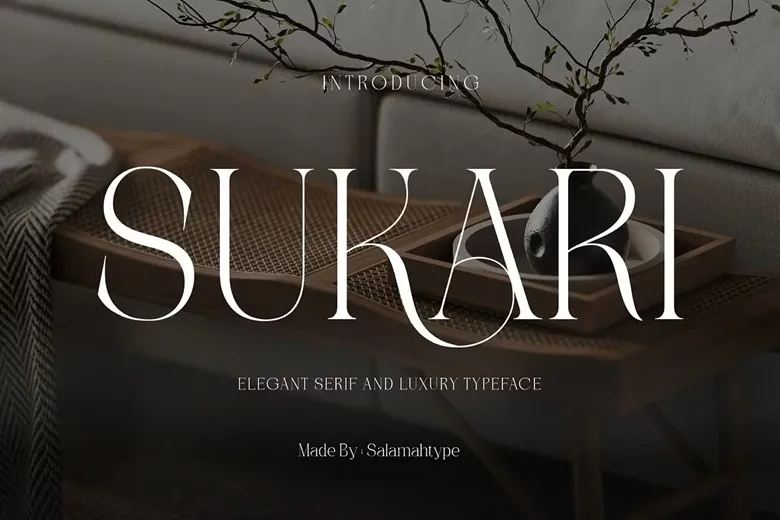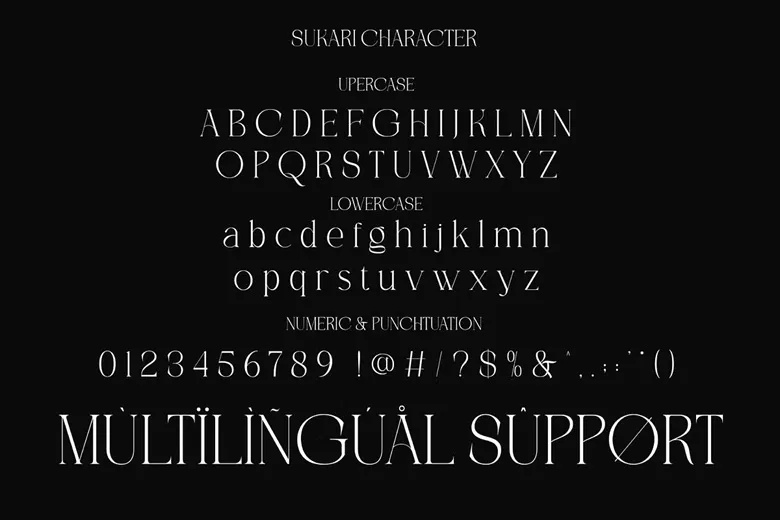
Sukari Font
Sukari is a stunning serif typeface inspired by contemporary design trends. With its delicate, thin lines and beautifully crafted capital letters, Sukari adds a touch of elegance and sophistication to any creative project. Whether you’re designing a stylish logo, a chic wedding invitation, or the eye-catching cover of a popular magazine, Sukari provides a refined foundation that elevates your work.
The font includes graceful alternates and an elegant italic style, offering versatility and creative freedom. If you appreciate the blend of modern sophistication and personality in your typography, Sukari is a font you’re sure to fall in love with.